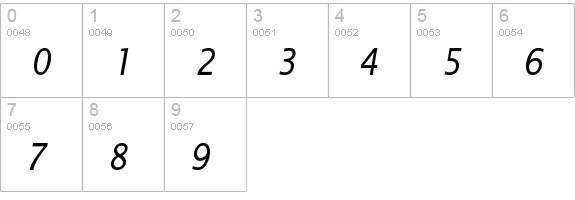
LucidaSansNarEF-Ita Font Details
LucidaSansNarEF-Ita is a stylish and versatile font that exudes elegance and sophistication. Its italicized design adds a touch of flair to any project, making it perfect for both professional and creative use. This font is freely available to download at FontsMarket.com, allowing you to effortlessly enhance your designs with a touch of class and modernity. LucidaSansNarEF-Ita's sleek lines and sleek curves make it a standout choice for any design project, whether it be for print or digital media. Elevate your design game with this beautiful and free font today!